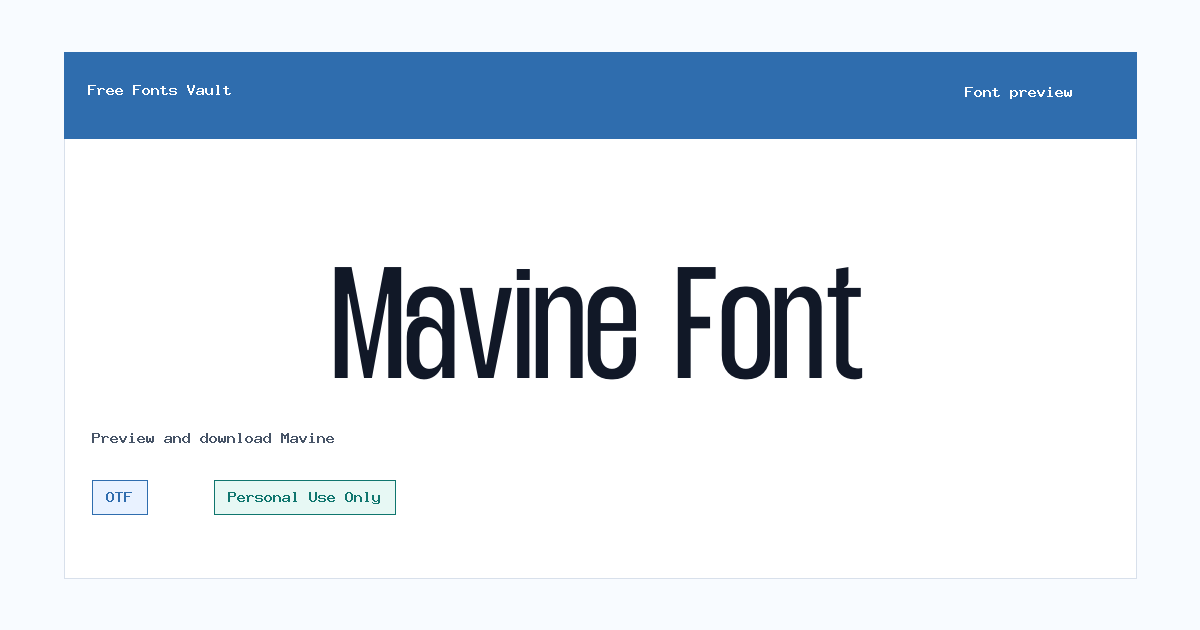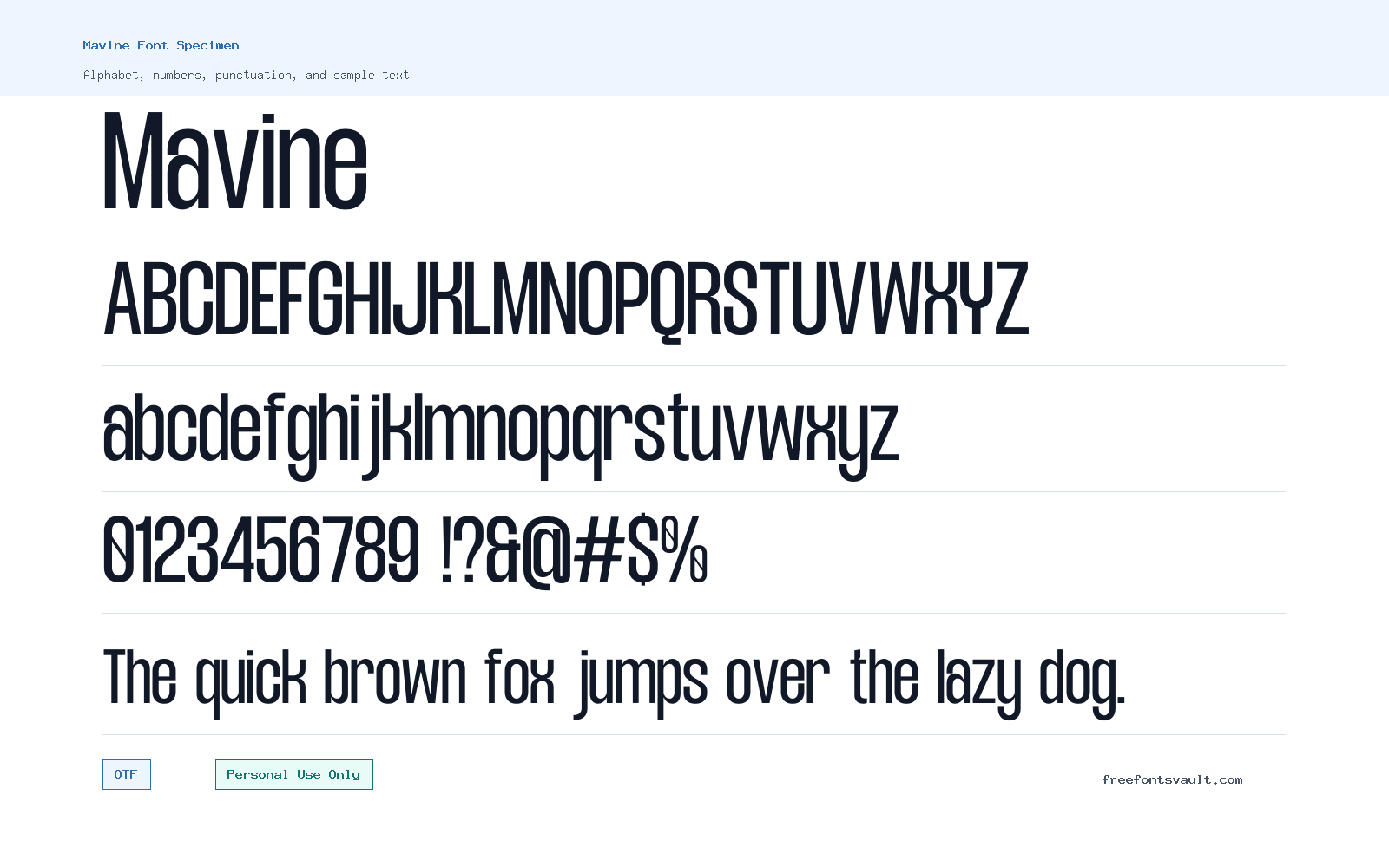
Mavine
- Designer Doni Purwoko
Mavine font.
Mavine is a sans serif font family by Doni Purwoko with a range of OTF styles for personal design work. It is useful when you want to test a clean, weight-flexible typeface in headings, short copy, and visual layouts.
About Mavine Font
Mavine gives you several weight choices, from thin and light cuts through regular, medium, semibold, bold, and extrabold file names. That makes it more flexible than a single-style display font: you can try lighter weights for spacious titles, regular or medium for balanced text, and heavier cuts when a headline needs stronger emphasis. Since the font is identified as a sans serif family, it is best approached as a modern, simple type option rather than a decorative script or serif face.
- Headlines, posters, social media graphics, and title treatments
- Personal branding mockups, presentation covers, and short layout experiments
What type of font is Mavine?
Mavine is listed as a sans serif font family.
Which Mavine weight should I try first?
Try Regular or Medium for general layout testing, Bold or Extrabold for strong titles, and Thin or Light only when the text is large enough to stay clear.
Who designed Mavine?
The designer is listed as Doni Purwoko.